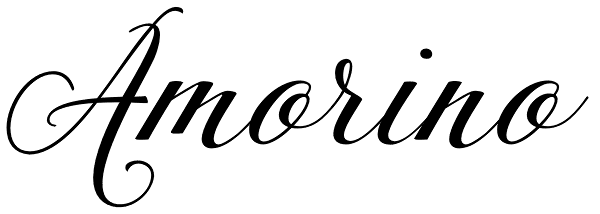
Amorino
Amorino is a new casual and organic calligraphic font. Is the perfect blend of elegant and casual. With the total number of 889 glyphs, is equipped with plenty of OpenType features. Uppercase letters can alternate between at least four different...